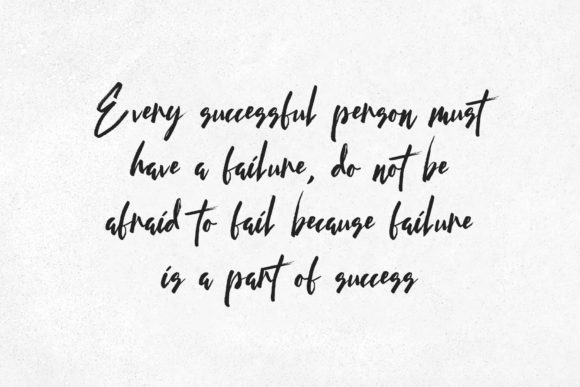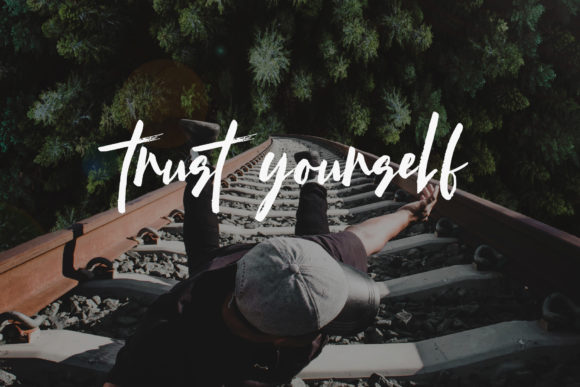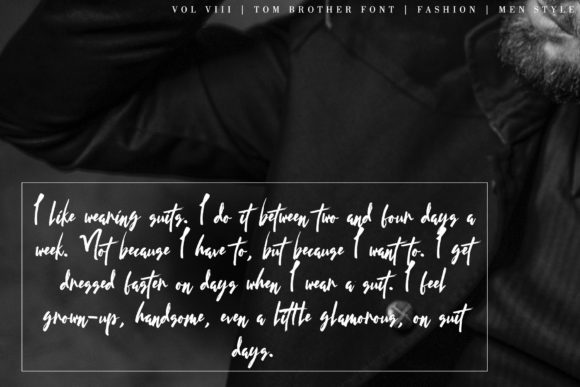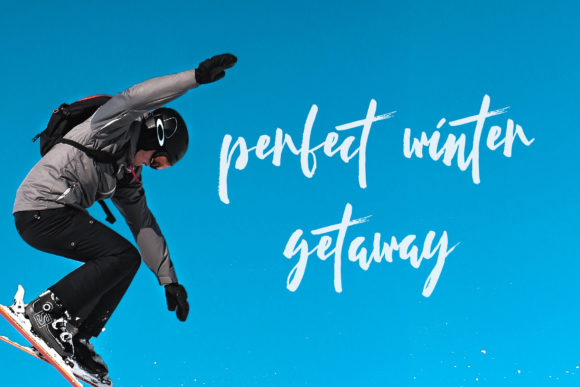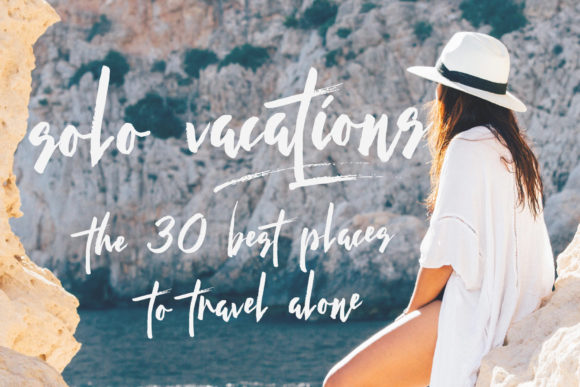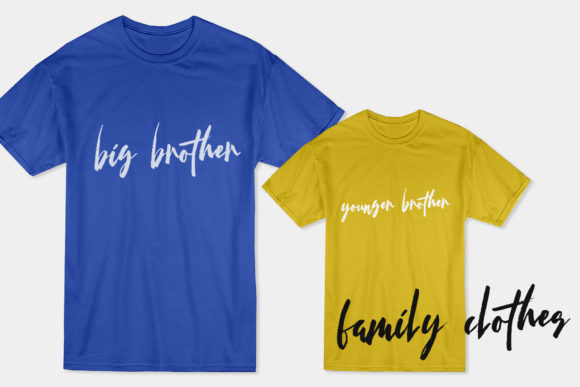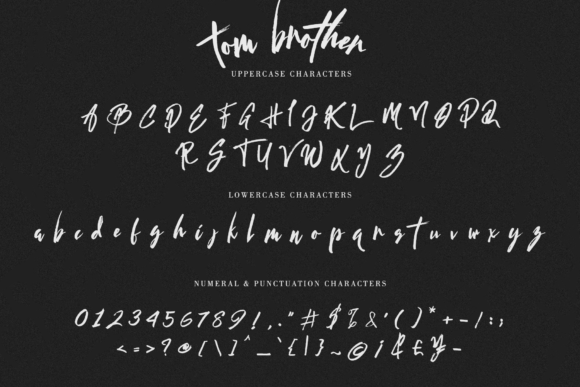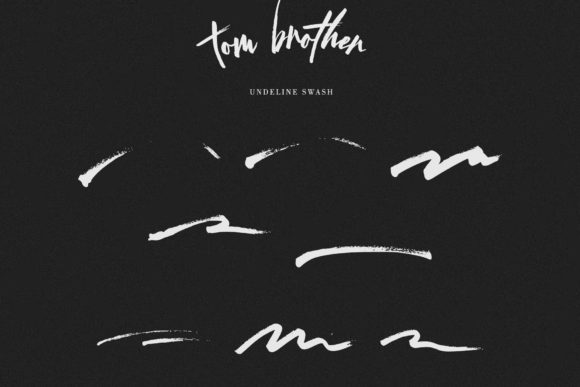
HomeScript FontsTom Brother Font Script Fonts Tom Brother Font FacebookXPinterestWhatsApp Tom Brother Font Poster 2 Tom Brother Font Poster 3 Tom Brother Font Poster 4 Tom Brother Font Poster 5 Tom Brother Font Poster 6 Tom Brother Font Poster 7 Tom Brother Font Poster 8 Tom Brother Font Poster 9 About Tom Brother Font Tom Brother is a textured brush font with a cool vibe. Use it to turn any design project into a standout! DOWNLOAD NOW People also explored Bestalina Font Bestover Font History Valentine Font Ceriya Font Billenia Font Durango Western Font Rowan Font Sweetyoung Font Clover Flower Font 271 0 TagsTom Brother Font Previous articleColintha FontNext articleDesintona Script Font LEAVE A REPLY Cancel reply Comment: Please enter your comment! Name:* Please enter your name here Email:* You have entered an incorrect email address! Please enter your email address here Website: Save my name, email, and website in this browser for the next time I comment. Personal Use Free Nugo Sans Personal Use Free Read more about this font Sunflower Personal Use Free Read more about this font Mike Ferrari 16017 Personal Use Free Read more about this font Coffete Personal Use Free Read more about this font BLOG How to Cut Any Font on Cricut: Convert a Font to SVG (Free) Turn any font into a clean SVG so it cuts crisp on Cricut - a quick 3-step workflow using a free font-to-SVG tool. How to Install and Use Fonts on Windows, macOS, and Web Projects Best Fonts for T-Shirt Design – Top 2025 Picks Exploring Font Trends